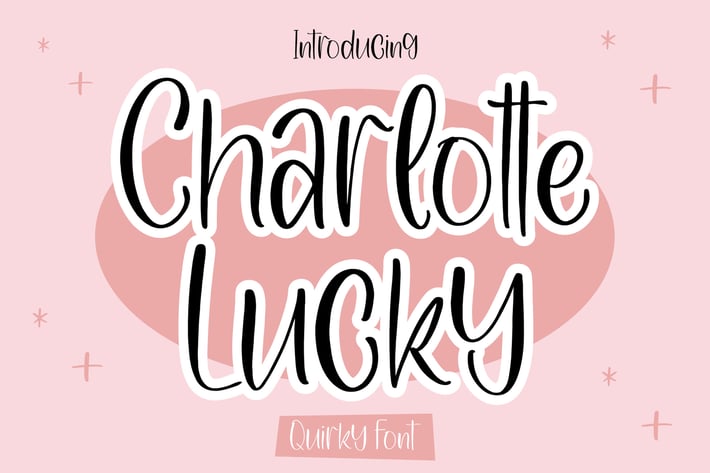
Charlotte Lucky Quirky Font
Charlotte Lucky Quirky Font is a fun and playful typeface with bold strokes and lively character shapes. Its quirky handwritten style adds personality and charm, making it an excellent choice for cheerful branding, kids’ projects, and casual creative designs.
+ Quirky handwritten style with bold outlines
+ Unique character set full of personality
+ Kids’ projects and playful branding
+ Greeting cards & invitations
+ Social media posts & quotes
+ Fun packaging designs
+ Casual creative projects
Add a dose of quirky fun to your designs with Charlotte Lucky — bold, playful, and full of personality.